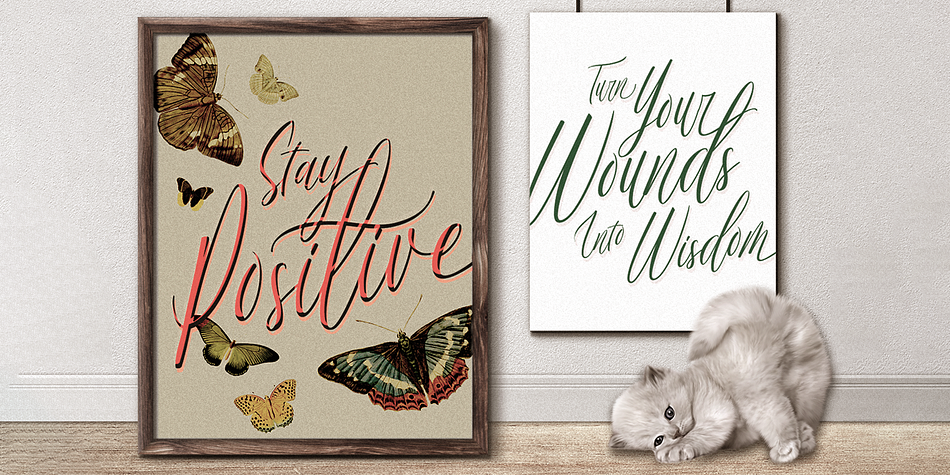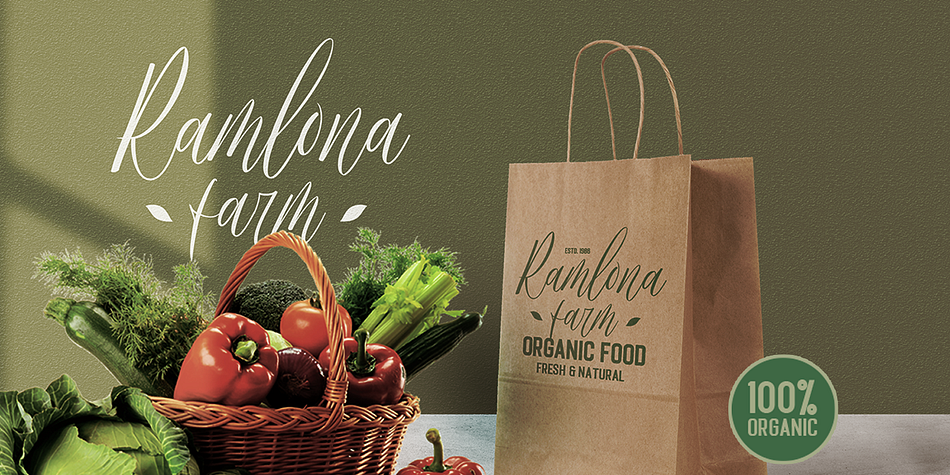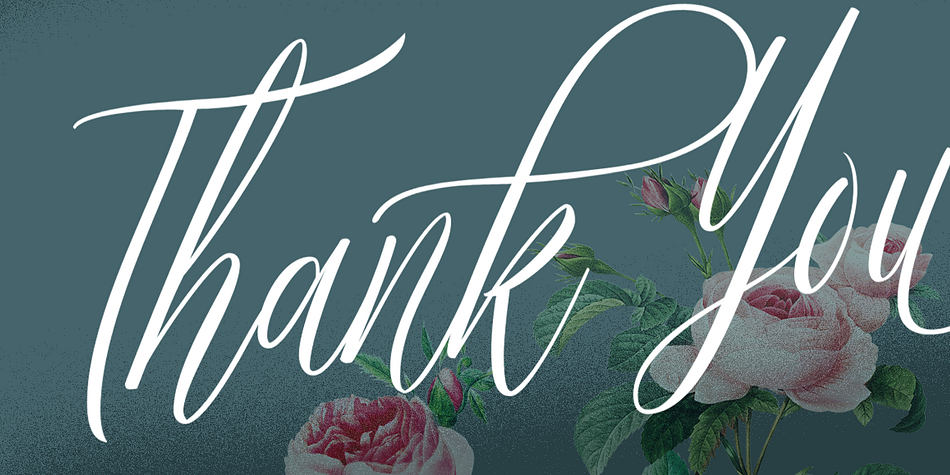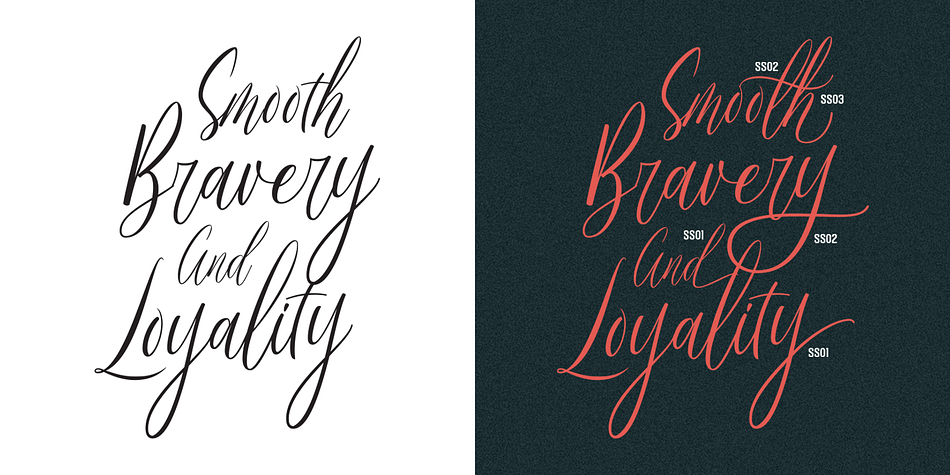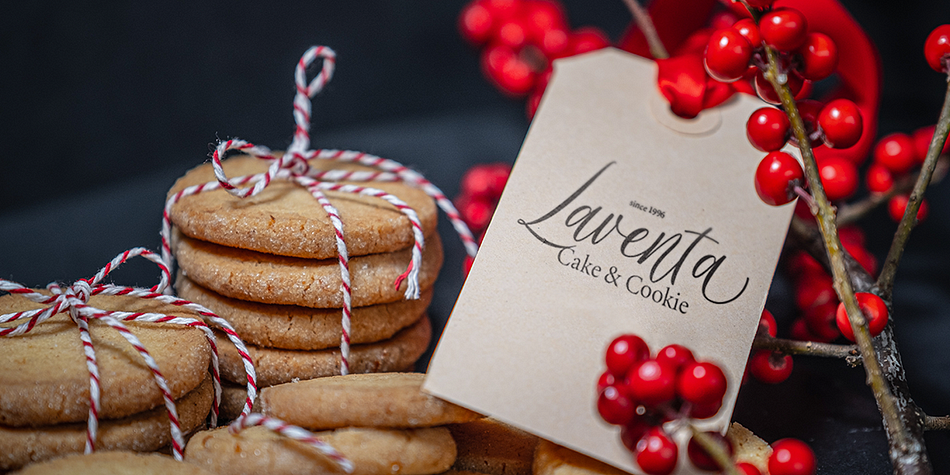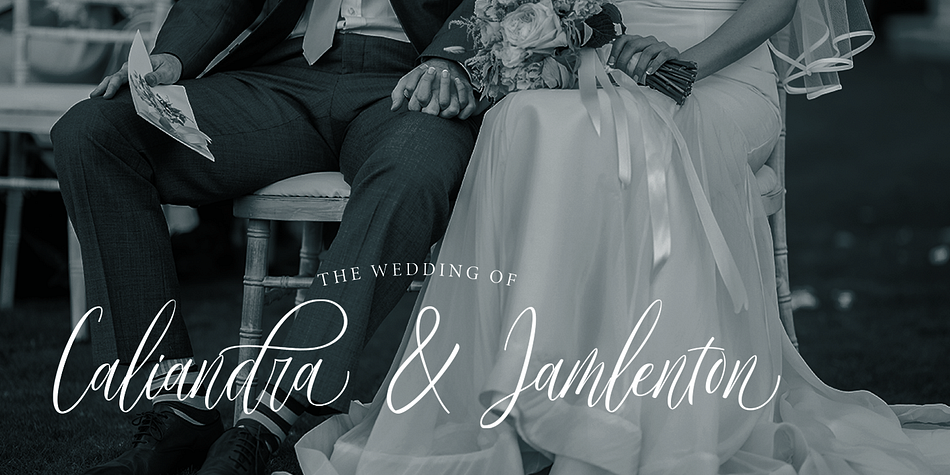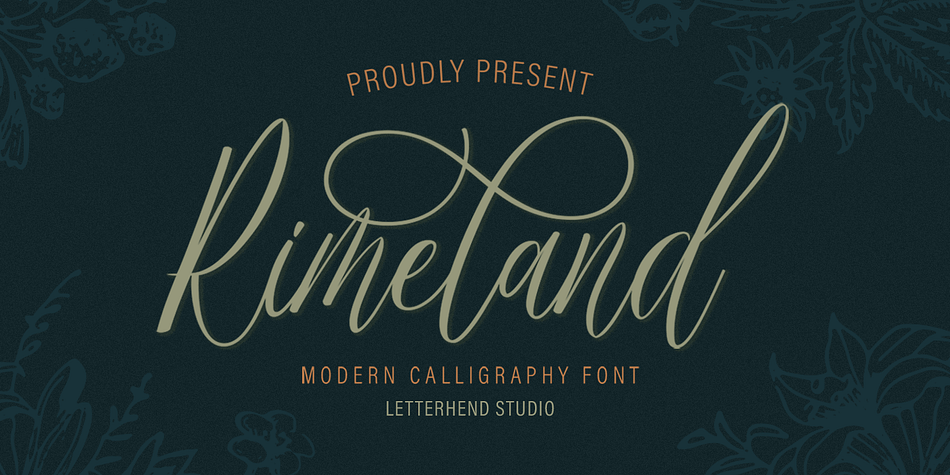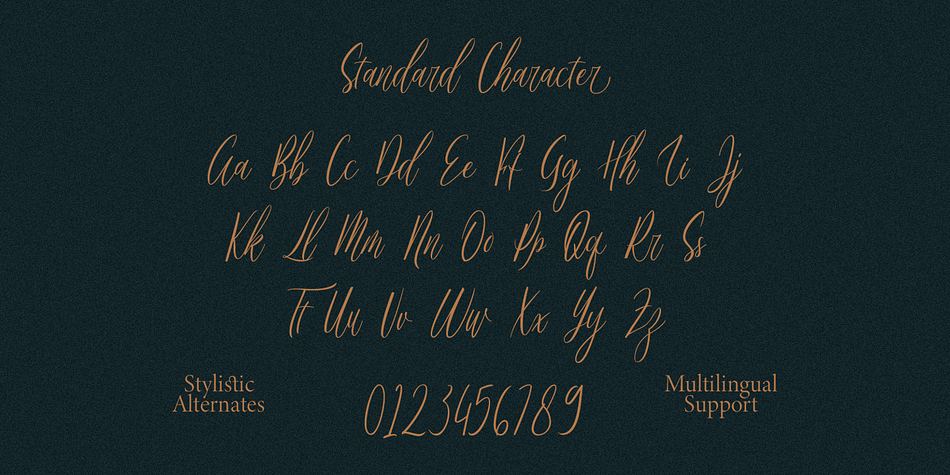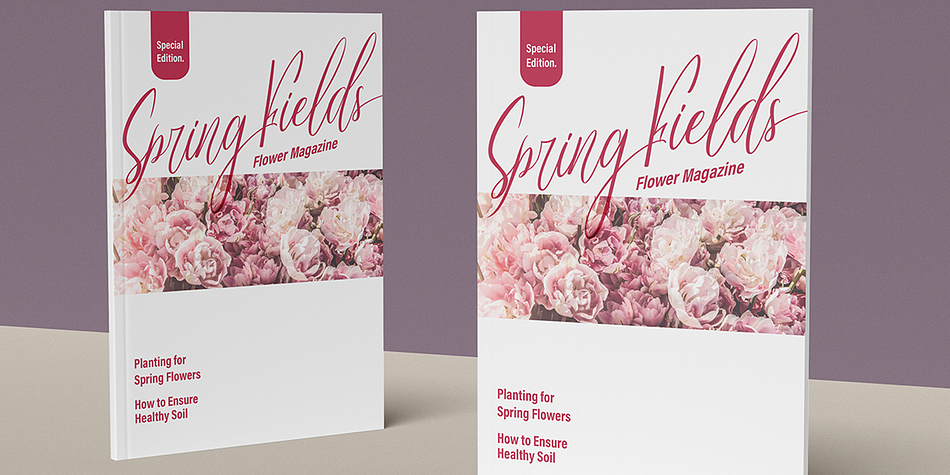
Designed by Hendry Juanda, Rimeland is a modern calligraphy and script font published by Letterhend Studio.
Introducing, Rimeland Script - A beautiful modern calligraphy script based on manual hand writing. The natural flow with the swashes make this font looks even more prettier. This type of font perfectly made to be applied especially in wedding invitation, labels, logos, magazines, books, greeting / wedding cards, packaging, fashion, make up, stationery, novels, labels or any type of advertising purpose.
- swash and ligature
- alternates